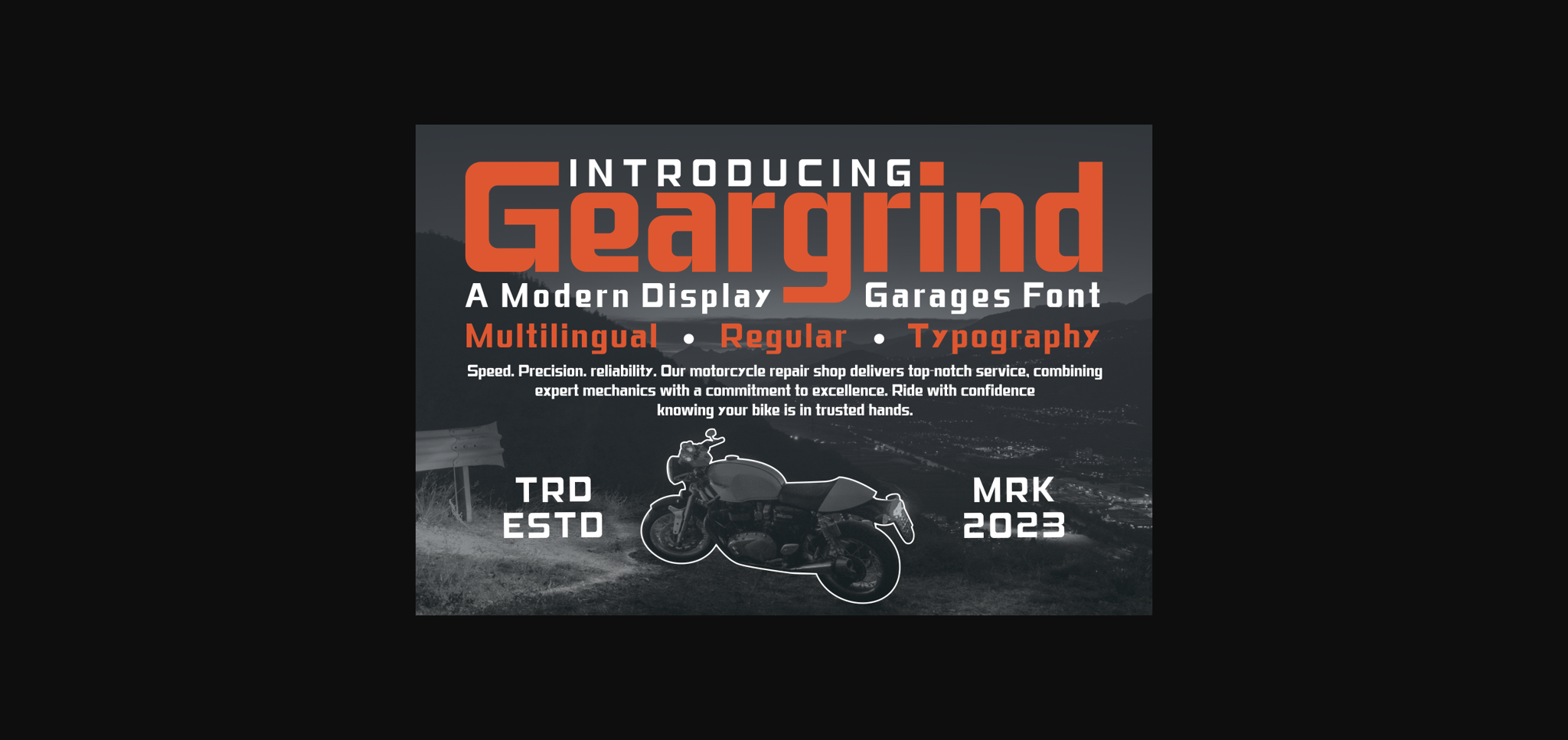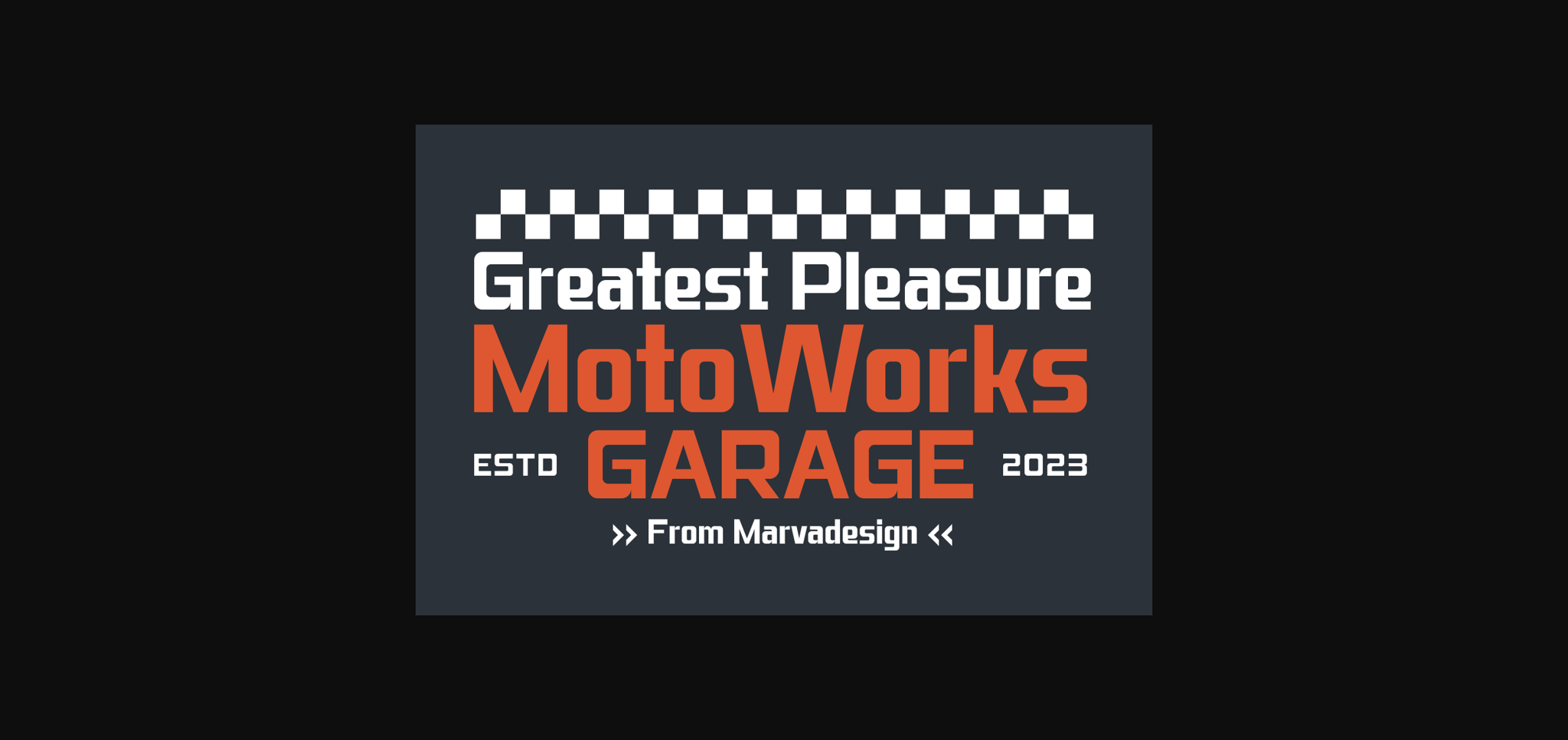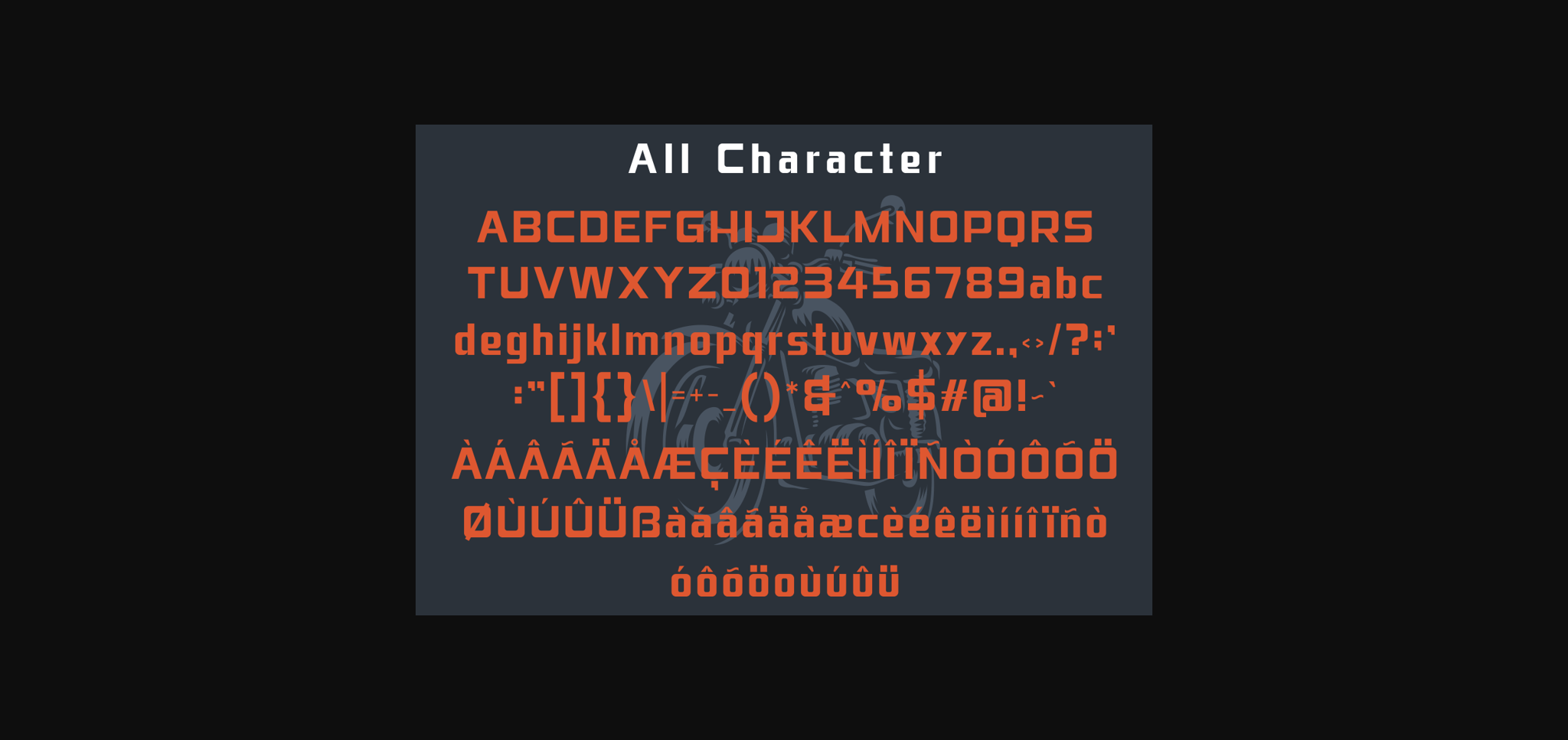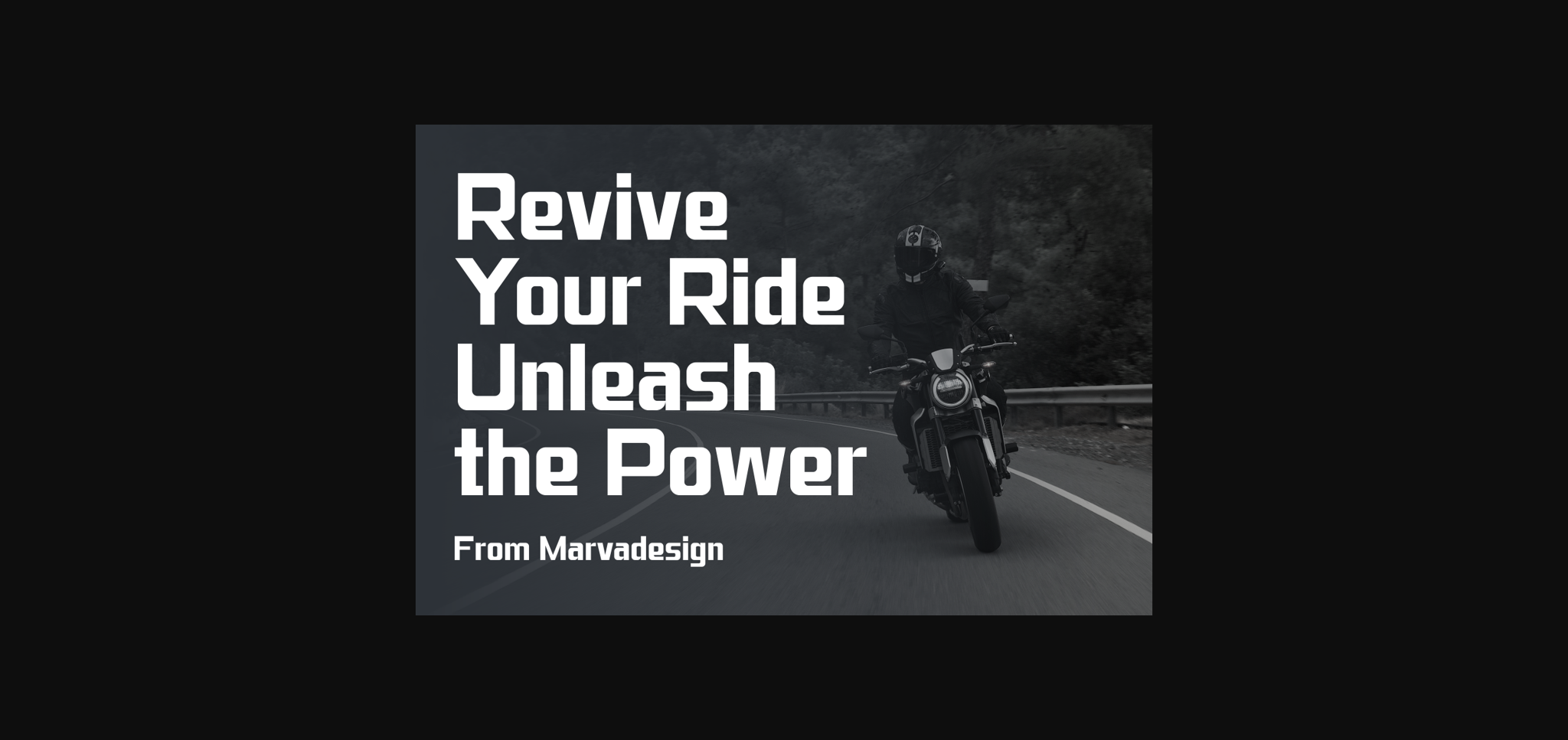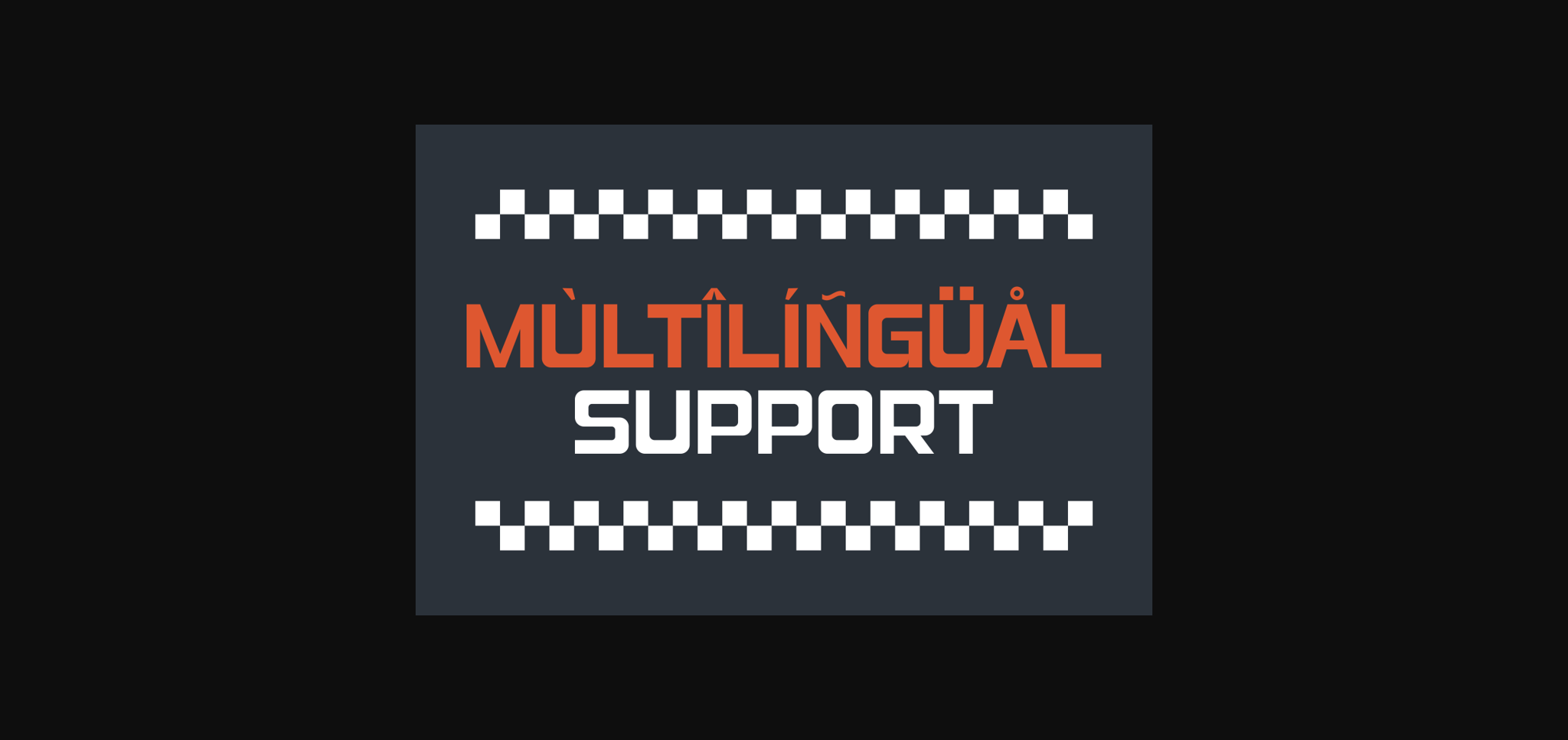
Geargrind Font
About Geargrind Font
Introducing our new product **Geargrind Font** – Modern Font
Geargrind Font** – Modern Font is a bold and authentic display font. The font is suitable for any branding project like logo, Template Design, Product and many more. outstanding in a wide range of contexts.